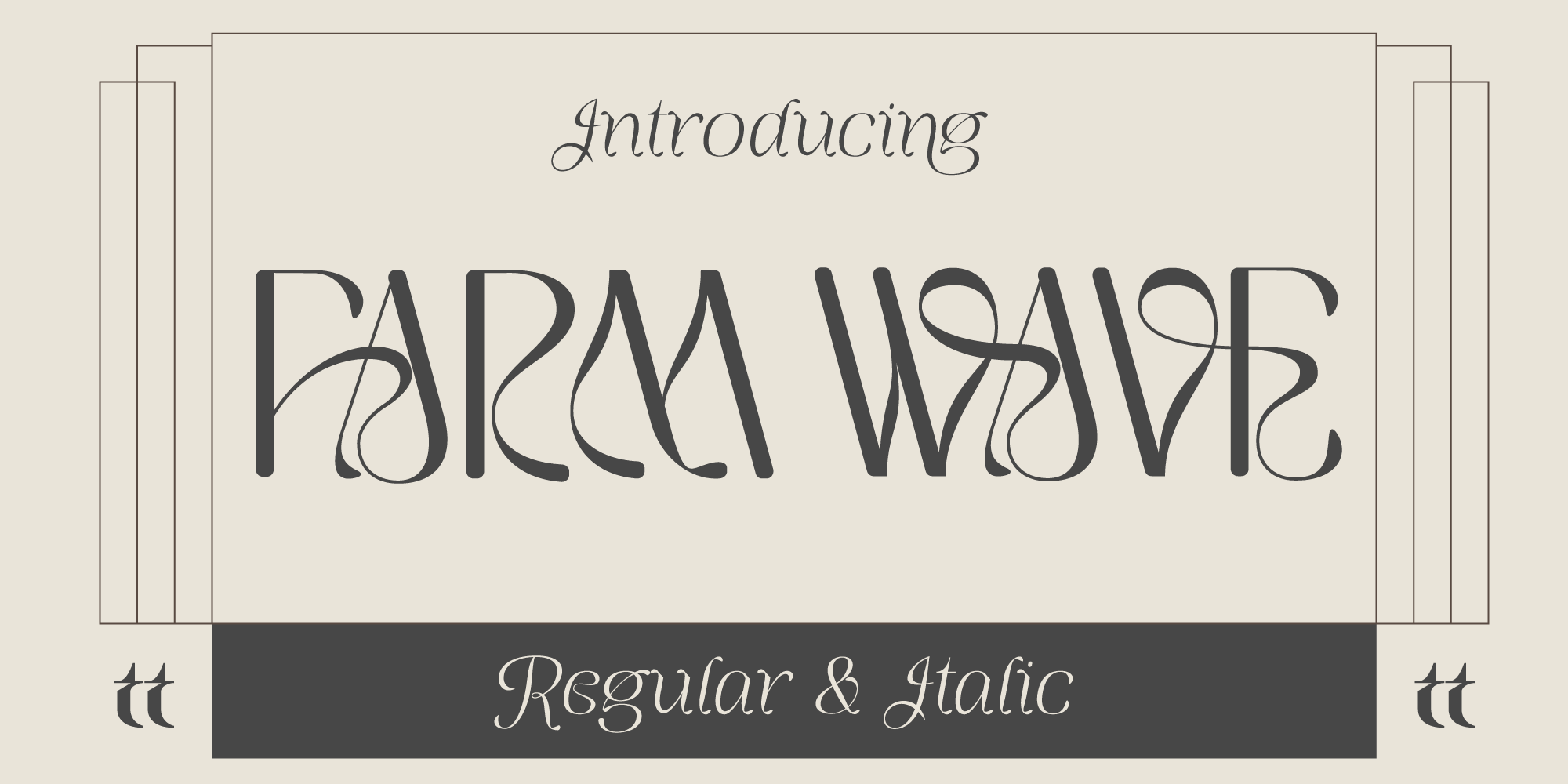
Farm Wave Font is perfect for organic product packaging, agricultural branding, farm-to-table restaurant menus, eco-friendly marketing materials, rustic wedding invitations, craft brewery labels, natural cosmetics packaging, and outdoor adventure brand designs.
What makes Farm Wave Font exciting is its unique ability to capture the essence of countryside charm while maintaining contemporary appeal. This distinctive typeface combines organic flow with structured readability, creating a perfect balance between rustic authenticity and modern functionality. The font's natural character variations evoke feelings of freshness, sustainability, and wholesome quality that resonate with today's environmentally conscious consumers.
Farm Wave Font family includes Regular, Bold, Light, Medium, and Condensed variations, plus decorative elements and ornamental characters. Each style maintains the font's earthy character while providing versatility for different design applications and brand communication needs.
Designers consistently choose Farm Wave Font Free Download for projects requiring authentic, nature-inspired typography. This remarkable typeface has gained recognition among creative professionals working with organic brands, sustainable businesses, and artisanal products. The font's ability to convey trustworthiness and natural quality makes it an excellent choice for brands emphasizing environmental responsibility and authentic craftsmanship.
The design philosophy behind Farm Wave Font emphasizes organic curves and hand-crafted aesthetics. Its letterforms feature gentle undulations that mirror natural wave patterns, while maintaining excellent legibility across various applications. The font's warm character creates an inviting atmosphere that connects with audiences seeking authentic, down-to-earth brand experiences.
Creative agencies specializing in organic and sustainable brands frequently select Farm Wave Font for clients requiring authentic visual communication. The font's versatility allows seamless integration into comprehensive branding systems, from packaging designs to digital marketing materials, ensuring consistent brand personality across all consumer touchpoints.
The technical execution of Farm Wave Font demonstrates careful attention to both aesthetic appeal and functional performance. Optimized spacing and kerning ensure smooth text flow, while OpenType features enhance typography capabilities for professional design applications. The font supports multiple languages, making it suitable for international organic and sustainable brand campaigns.